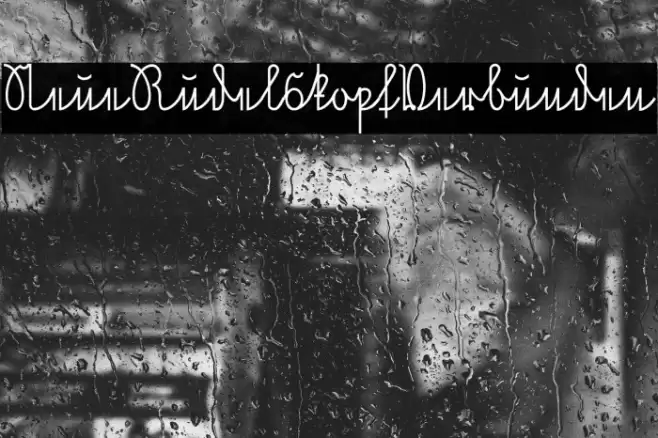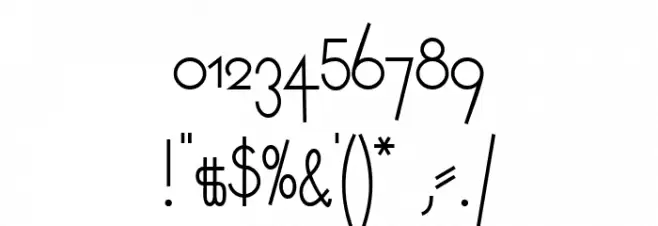
NeueRudelskopfVerbunden Font
NeueRudelskopfVerbunden Description
This font features a unique blend of cursive and decorative elements, characterized by its flowing, interconnected strokes that give it a handwritten appearance. The uppercase letters exhibit a distinct looped style, while the lowercase letters maintain a consistent fluidity, enhancing its script-like quality. The numerals and special characters are crafted with the same attention to detail, ensuring a cohesive look across all glyphs. The overall design is elegant yet playful, making it suitable for creative projects that require a personal touch. Its intricate style suggests a sense of sophistication and artistry, ideal for projects that aim to convey elegance and creativity.
A cursive, decorative font with interconnected strokes and a handwritten appearance from Uncategorized fonts.